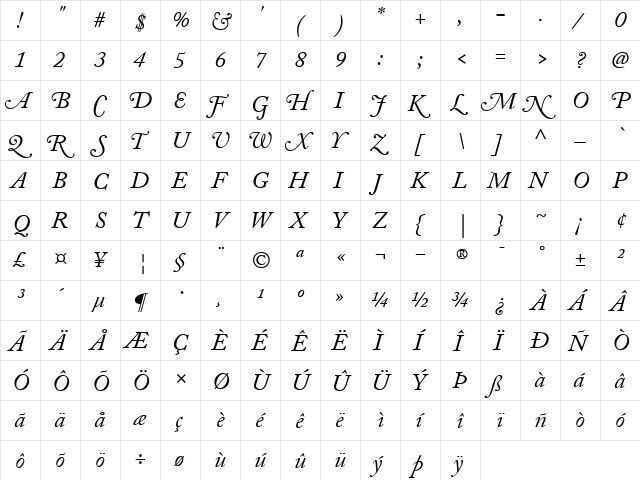
tsp machina 1 caps Italic
Design Context for tsp machina 1 caps Typeface
tsp machina 1 caps is a composed and adaptable typeface that performs quietly and consistently across a wide range of design contexts. Its italic angle brings a sense of urgency and motion to the letterforms.
Pro Tip: Try tsp machina 1 caps for annotation and caption copy alongside an upright companion — the contrast in angle creates a dynamic but ordered typographic system.